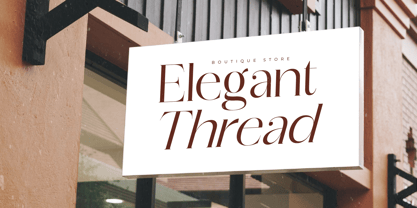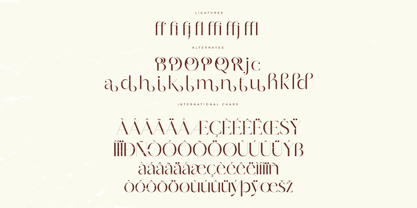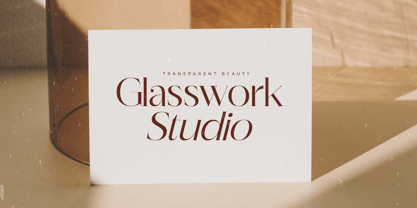
Quorina
The Quorina Font Family was designed by Heru Utama Putra and published by Letterena Studios. Quorina contains 2 styles and family package options. More about this family
Quorina is a modern and stylish serif font that marries clean lines with subtle curves for a contemporary look. Perfect for editorial designs, luxury branding, and web typography, its sophisticated presence enhances every composition. Choose Quorina for a touch of modern elegance in your creative projects.